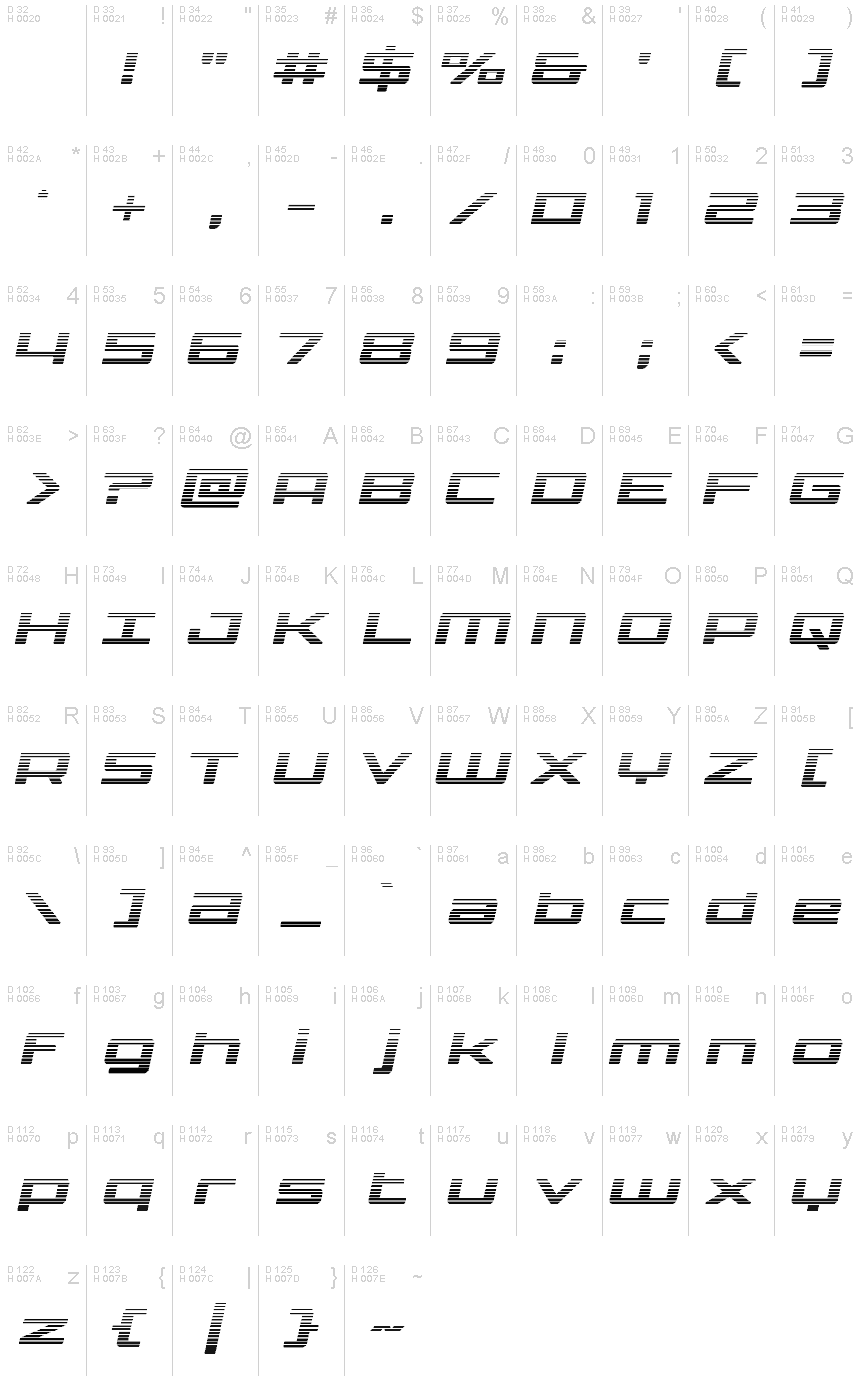
Phoenicia Lower Case Gradient Italic
Phoenicia Lower Case Gradient Italic is a captivating display font that exudes a distinct techno-inspired aesthetic. Designed by Daniel Zadorozny, this expanded font family boasts a striking gradient effect that lends a futuristic and dynamic quality to its letterforms.
The lowercase orientation and italic styling create a sense of fluidity, while the expanded width adds a bold, attention-grabbing presence. This font excels in a variety of contemporary design applications, from eye-catching event branding to impactful packaging and digital interfaces.
Its versatile nature allows it to seamlessly integrate into diverse creative projects, lending a unique and visually engaging touch.